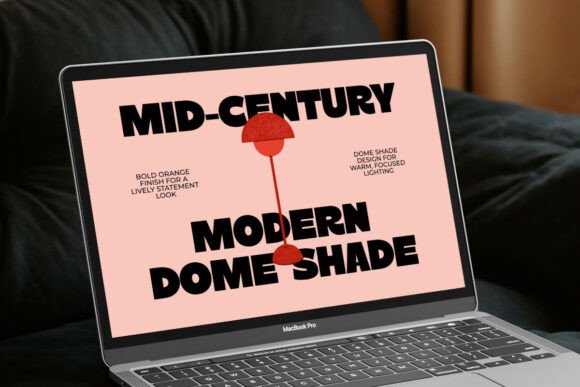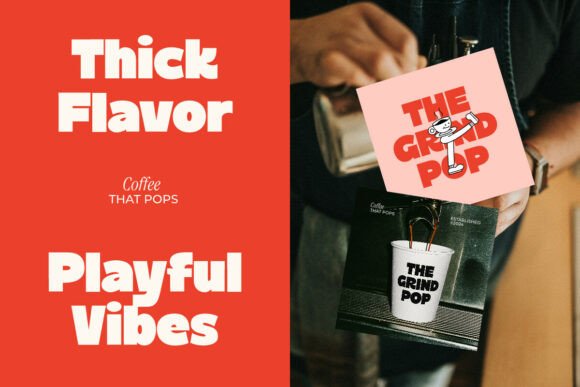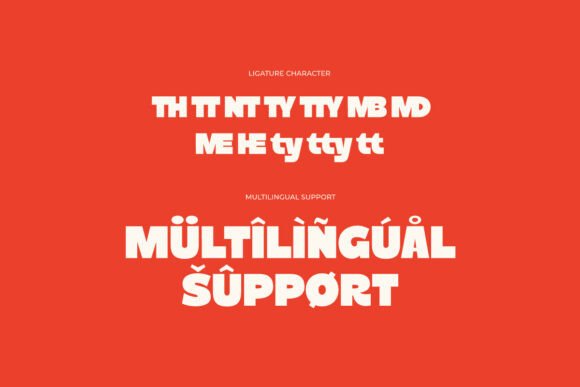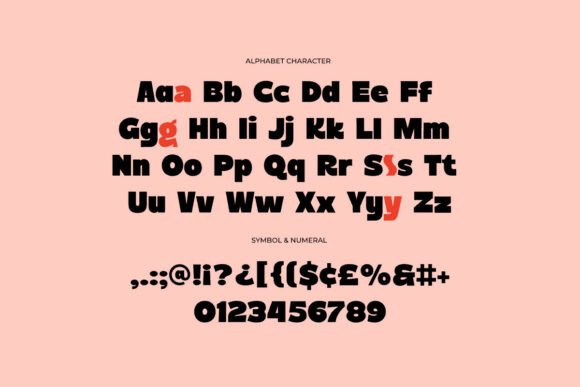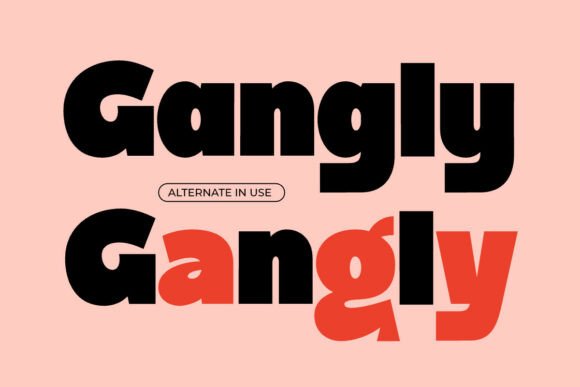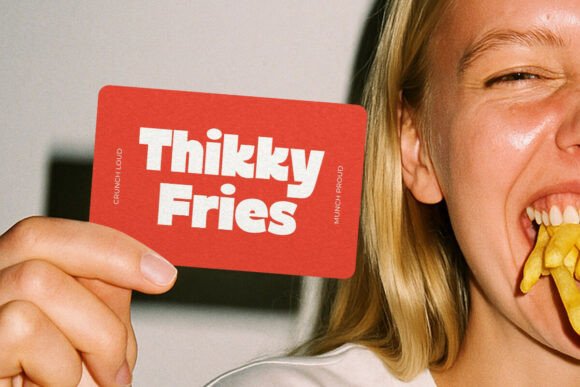
Introducing Chunk Font: The Ultimate Display Font for Bold Statements
In the world of typography, fonts play a crucial role in conveying messages, expressing creativity, and making a lasting impression. For designers, crafters, and marketers, finding the right font can be a daunting task. However, if you’re looking for a font that can make a bold statement, look no further than Chunk Font. Designed to be unique, chunky, and attention-grabbing, Chunk Font is perfect for logos, posters, headlines, social media graphics, and branding projects.
What Makes Chunk Font Stand Out?
Chunk Font is not just another display font; it’s a game-changer. Its chunky design gives it a distinctive look that’s both modern and edgy. With its bold and sturdy appearance, Chunk Font is ideal for designers who want to make a statement. Whether you’re working on a logo, poster, or social media graphic, Chunk Font is sure to grab attention.
Key Features of Chunk Font
• Ligatures: Chunk Font comes with ligatures, which allow you to create a more fluid and natural look in your designs. Ligatures are essential for designers who want to add a touch of elegance and sophistication to their work.
• Symbols: The font includes a range of symbols that can be used to add a creative touch to your designs. From simple icons to complex graphics, Chunk Font’s symbols have got you covered.
• Numerals: Chunk Font also features numerals, making it perfect for designs that require numbers. Whether you’re creating an infographic or a poster, Chunk Font’s numerals are easy to read and visually appealing.
• Multilingual Support: With multilingual support, Chunk Font can be used for designs that require non-English languages. This feature makes it an excellent choice for designers who work with international clients or create content for a global audience.
Why Choose Chunk Font?
So, why should you choose Chunk Font for your design projects? Here are a few reasons:
• Unique Design: Chunk Font’s chunky design sets it apart from other display fonts. Its bold and modern appearance makes it perfect for designers who want to create a lasting impression.
• Versatility: Chunk Font can be used for a wide range of design projects, from logos and posters to social media graphics and branding projects.
• Easy to Read: Despite its chunky design, Chunk Font is easy to read, making it perfect for headlines, titles, and short paragraphs.
• Customizable: With ligatures, symbols, and numerals, Chunk Font offers a high level of customization, allowing you to create unique and creative designs.
In conclusion, Chunk Font is a unique and versatile display font that’s perfect for designers, crafters, and marketers who want to make a bold statement. With its chunky design, ligatures, symbols, numerals, and multilingual support, Chunk Font is an excellent choice for logos, posters, headlines, social media graphics, and branding projects. So, why settle for a ordinary font when you can make a statement with Chunk Font?